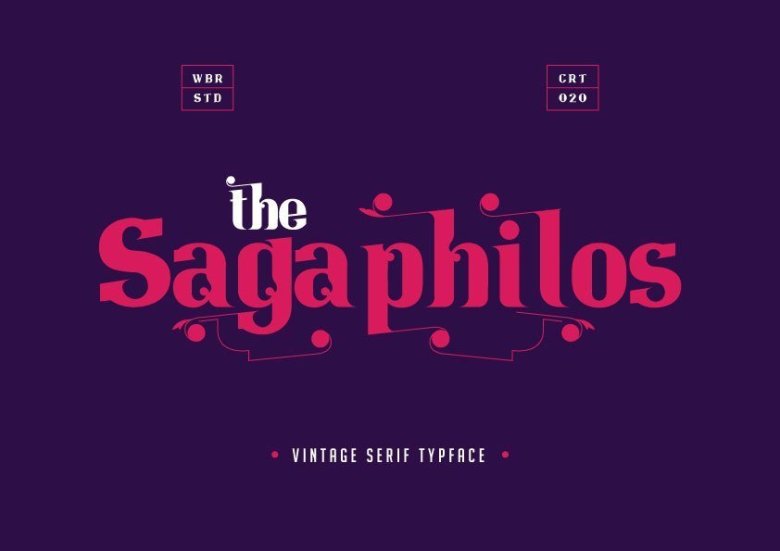
Sagaphilos Vintage Serif Typeface
Introducing Sagaphilos Font – A modern, luxury fashionable vintage serif typeface. It is a single height font, utilizing a mixture of lower and uppercase characters that brings a fresh and unique look to your designs.
Sagaphilos Font is primarily a display font (but can also be used for body copy) that we recommend using in the following types of work; magazines (titles and layouts), logos and branding, invitations, quotes, blog headers, posters, and advertising.